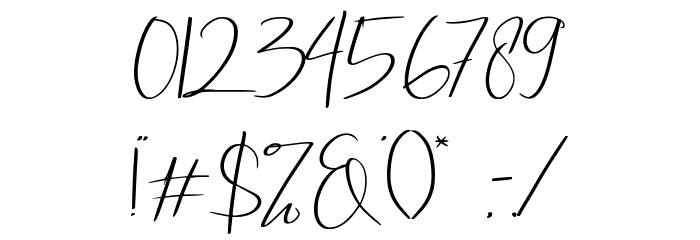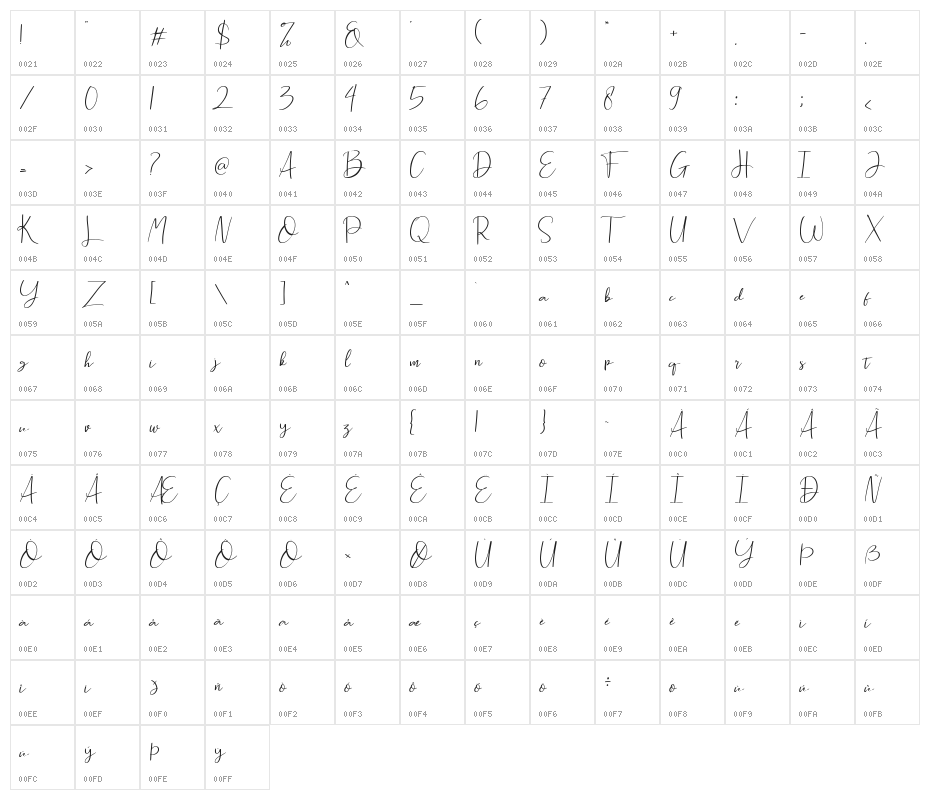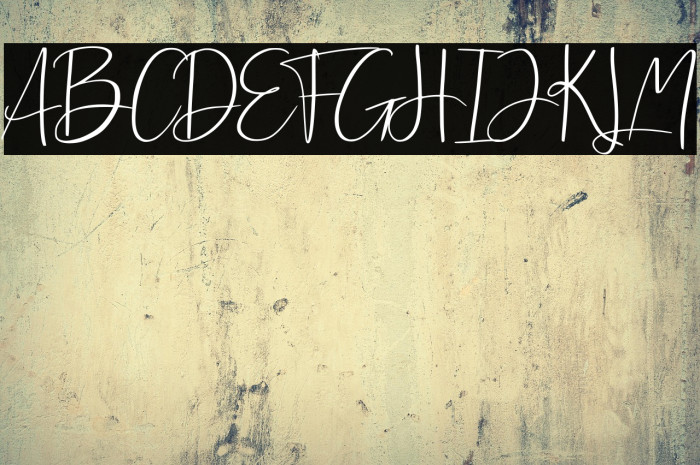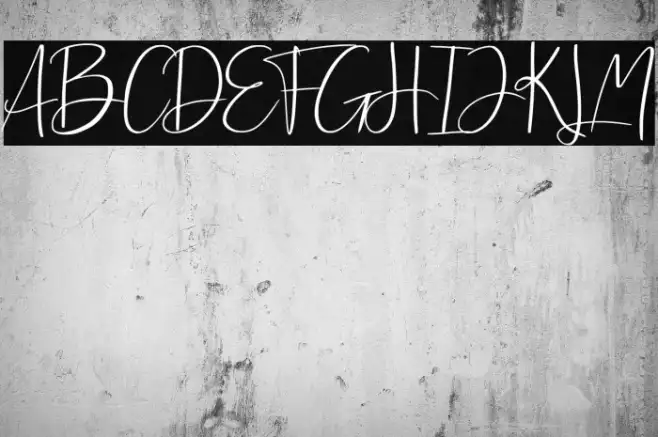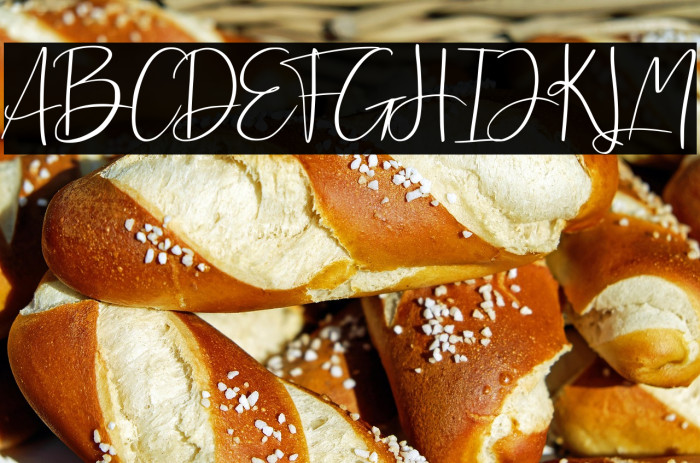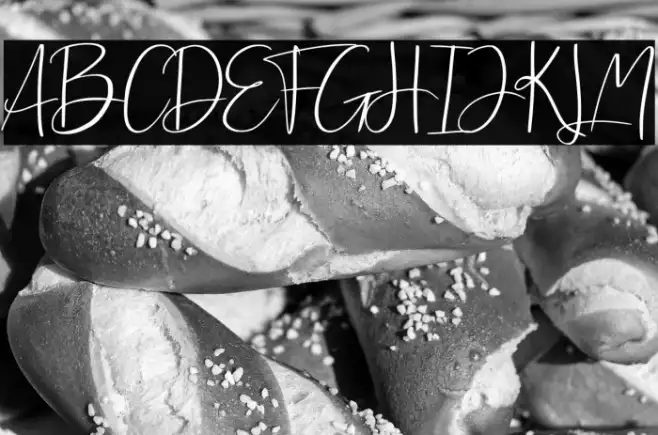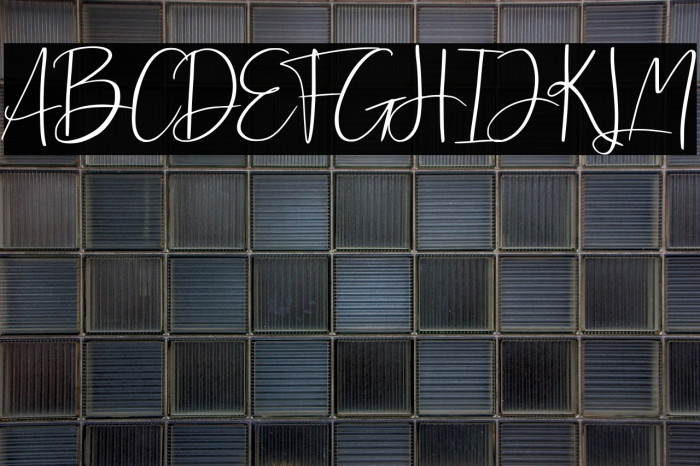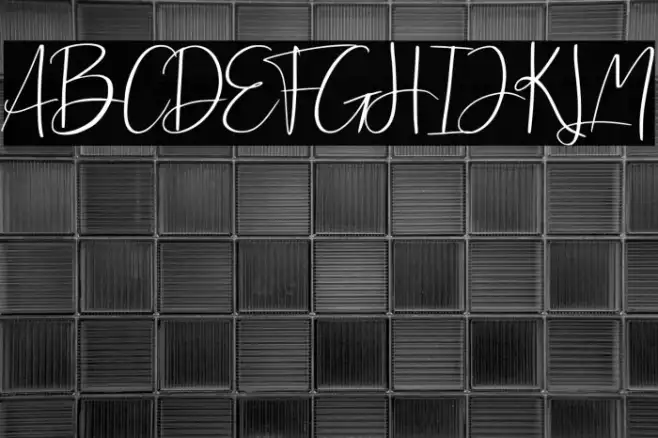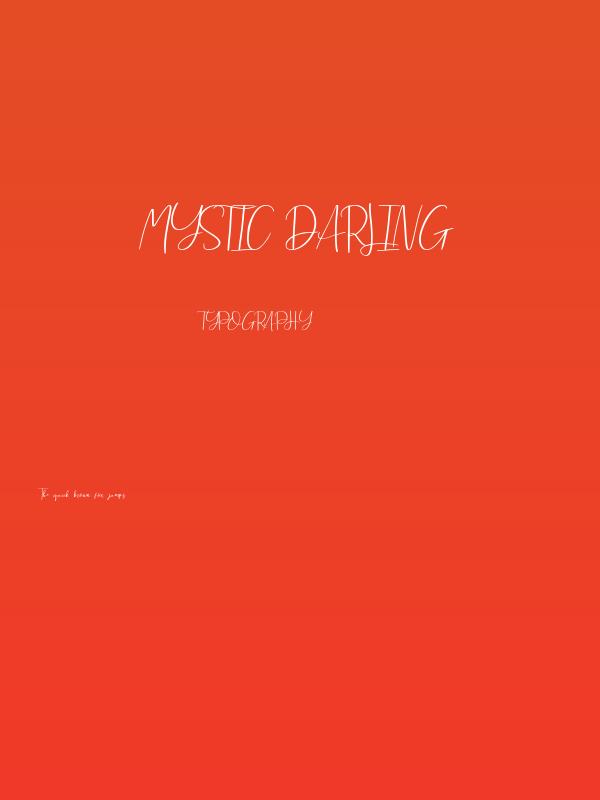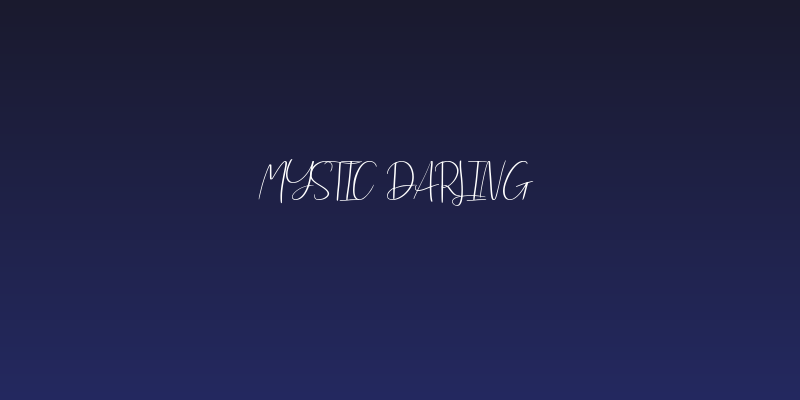
Mystic Darling Font
Mystic Darling Description
This font features a whimsical and elegant script style with a playful yet sophisticated appearance. The uppercase letters are tall and slender, with a slight slant that adds a dynamic flow. The lowercase letters are more fluid and connected, resembling a cursive handwriting style. Numbers and special characters maintain the same graceful aesthetic, making the font versatile for various uses. The overall design is characterized by its thin strokes and delicate curves, providing a sense of elegance and charm.
Overall StyleElegant, Playful
Use CaseLogos, Invitations, Greeting Cards
Proposed ProjectsIdeal for wedding invitations, greeting cards, branding projects, and elegant logos.